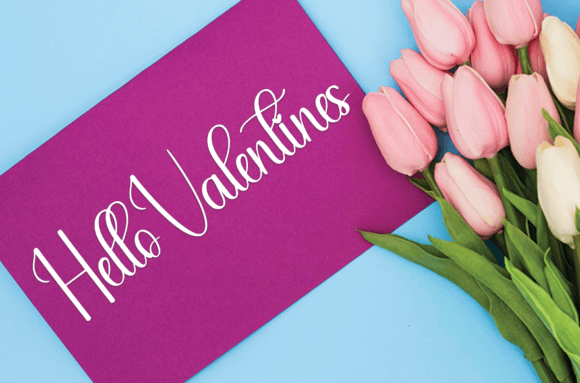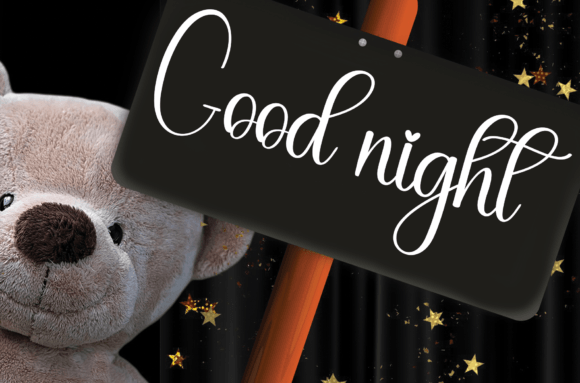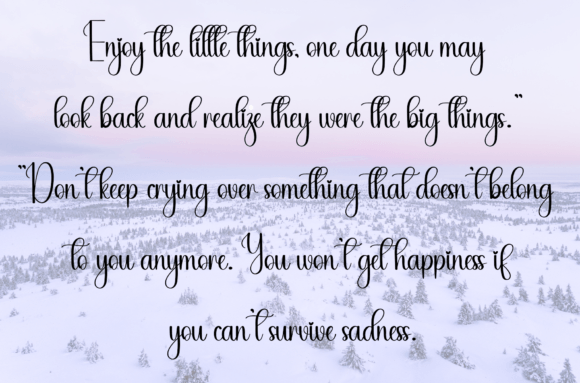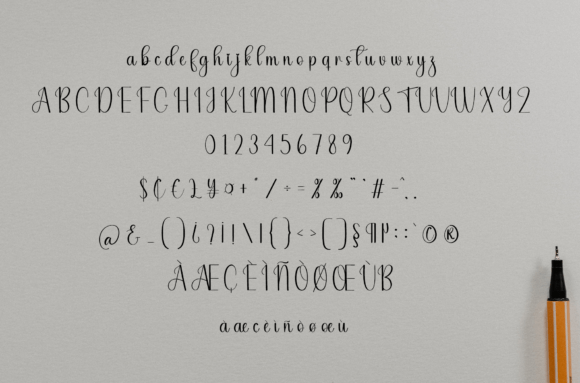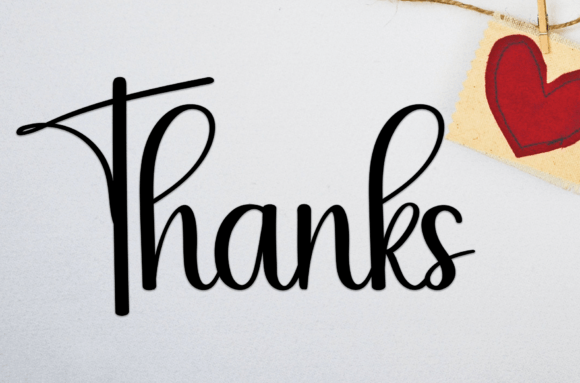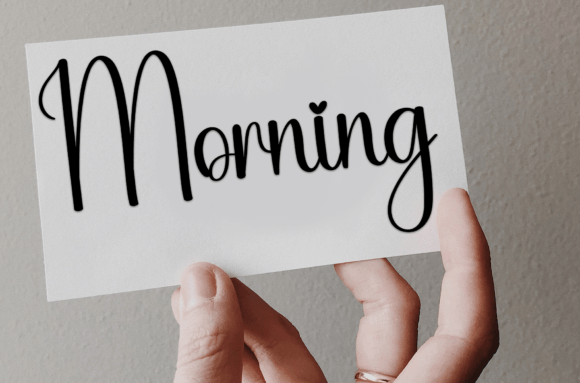
About Smile
Smile is a sweet and friendly handwritten font. Creative and cute, this font is ideal for writing wedding invitations, cards, or any other design that might need a fun touch!